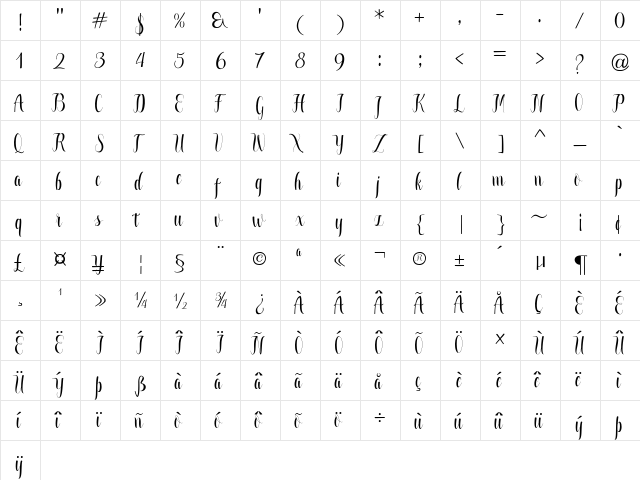
Greatfull Regular
| Foundry | polem |
Design Context for Greatfull Typeface
Greatfull is a composed and adaptable typeface that performs quietly and consistently across a wide range of design contexts.